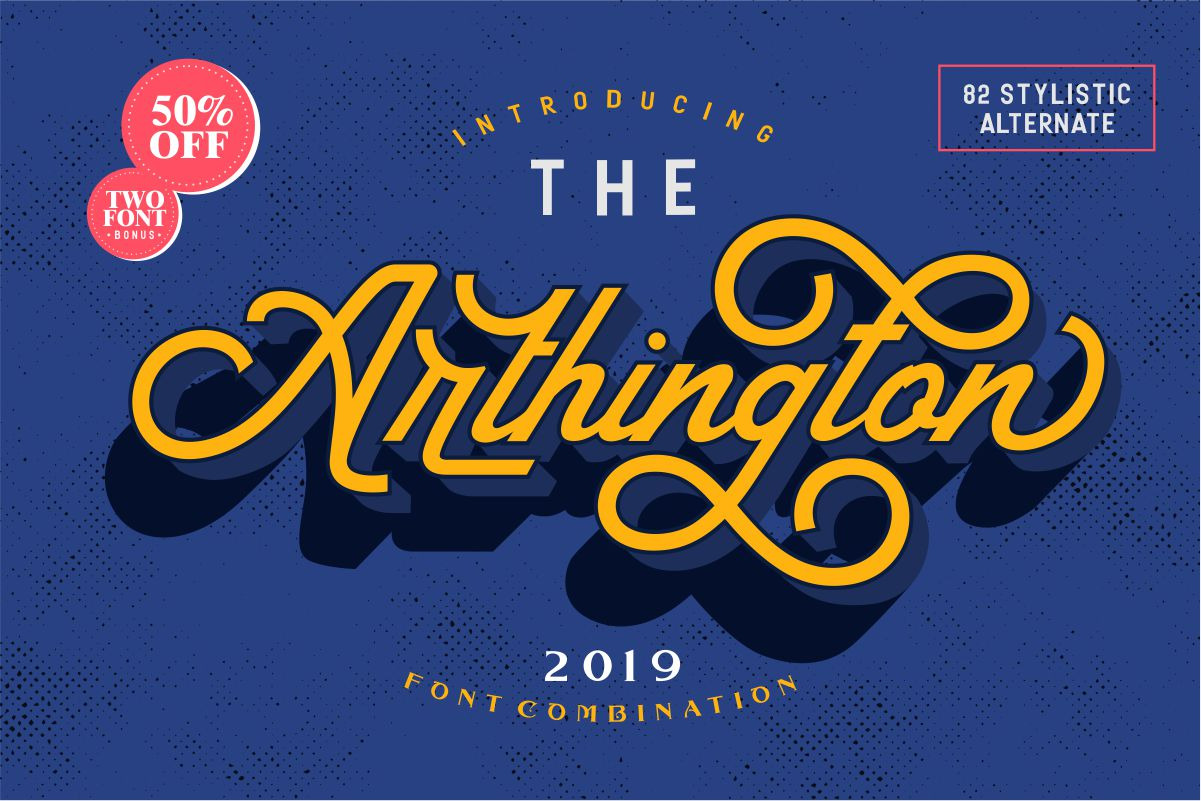
The Arthington + Bonus 2 font.
Arthington is Combination Font With 82 Stylistic Altrenate and 2 font Bonus Collonar typeface and Geronimo typeface.
Arthington Suitable for : designs logo,Branding,title,t-shirt design,typhography,magazine,book, or antyhing do you want. arthington font combination come with vintage taste..It's recommended to use it in opentype capable software because This font already uses a- z lowercase alternate,ligature.swash with PUA encode,This font is very easy to use for everyone, because I make it so simple but has a very clean ,strong and bold and futuristic taste, this font has a lowercase alternative and uppercase which is very similar to handwriting using a bold brush so it is suitable for branding, logos, lettering,quote,wedding, designs logo,Branding,title,t-shirt design,typhography,magazine,book, or antyhing
- Ligature & Stylistic alternate.